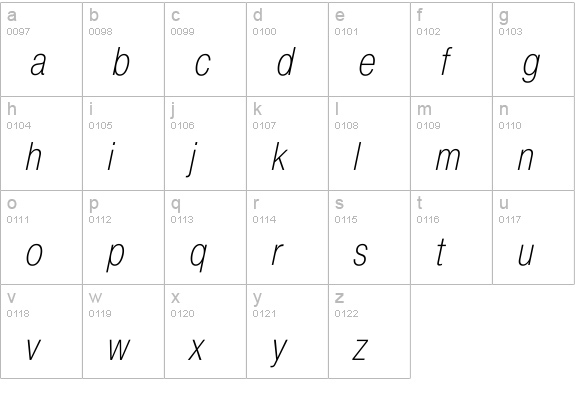
Pragmatica Cond ExtraLight Oblique Font Details
Pragmatica Cond ExtraLight Oblique is an airy, ultra-refined, condensed-width, italic variant in the Pragmatica typeface family \xE2\x80\x94 well suited to minimalist headlines and refined display use.
Pragmatica Cond ExtraLight Oblique font exudes elegance and sophistication with its sleek and modern design. The slanted style adds a dynamic touch to the text, making it perfect for conveying a sense of movement and energy. This font is ideal for creating eye-catching headlines, branding materials, and editorial designs that demand attention. What sets Pragmatica Cond ExtraLight Oblique font apart is not only its visual appeal but also its versatility. Whether used in print or digital media, this font maintains clarity and readability, ensuring that your message is effectively communicated to your audience. The best part is that Pragmatica Cond ExtraLight Oblique font is available for free download at FontsMarket.com. Now, you can easily access this stylish and professional font to elevate your design projects without any cost. Don't miss out on this opportunity to enhance your creations with the timeless charm of Pragmatica Cond ExtraLight Oblique font.